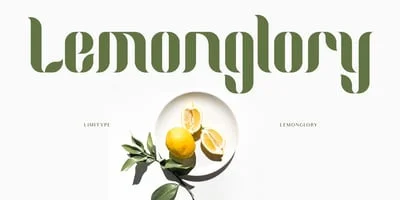
Lemonglory Font
Lemonglory Font is perfect for citrus beverage branding, summer festival posters, fresh juice bar signage, tropical resort materials, sunshine café identity, vitamin supplement packaging, cheerful children's products, bright lifestyle campaigns, and energizing social media content. This vibrant typeface brings citrus freshness and sunny optimism to both digital and print design applications.
Lemonglory Font is exciting because it captures the zesty energy and radiant joy of citrus sunshine, making it an exceptional choice for designers who want to convey brightness and vitality with authentic fresh appeal. Its vibrant letterforms and cheerful character provide the perfect combination of citrus energy and functional readability, ensuring your projects communicate freshness, happiness, and sunny excellence that resonates with audiences seeking genuine vitality and uplifting experiences.
The Lemonglory Font family includes bright weight variations and citrus elements, featuring light, regular, and bold weights with complementary sunny styles, zesty ligatures, and tropical decorative flourishes. Each style maintains consistent fresh aesthetics while offering flexibility for different energizing applications, allowing designers to create vibrant visual systems that reflect citrus vitality and sunshine optimism.
Whether you're designing for food and beverage brands, wellness companies, or cheerful lifestyle businesses, Lemonglory Font delivers authentic citrus appeal and sunny sophistication that connects with audiences seeking genuine freshness and energizing experiences. This premium typeface offers designers the bright energy and zesty charm needed to create designs that communicate citrus freshness, sunny vitality, and cheerful excellence effectively. The font's vibrant character makes it perfect for fresh branding, energizing campaigns, and sunny applications where authentic citrus credibility is essential. Download Lemonglory Font today and brighten your creative projects with genuine citrus sophistication and sunny typography excellence that defines fresh design standards.